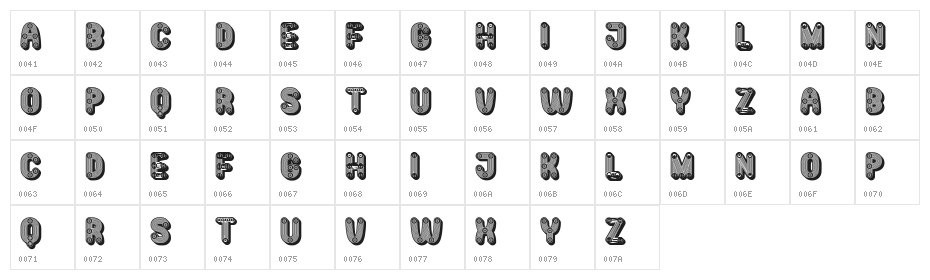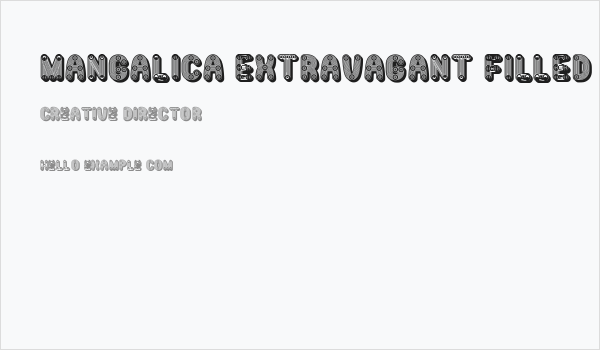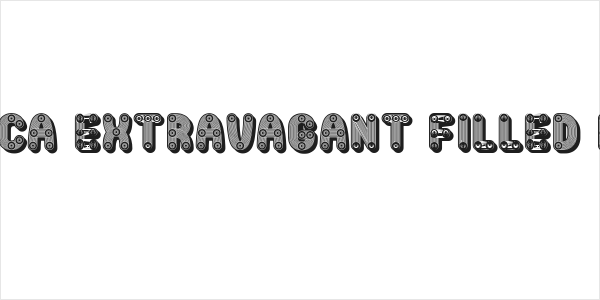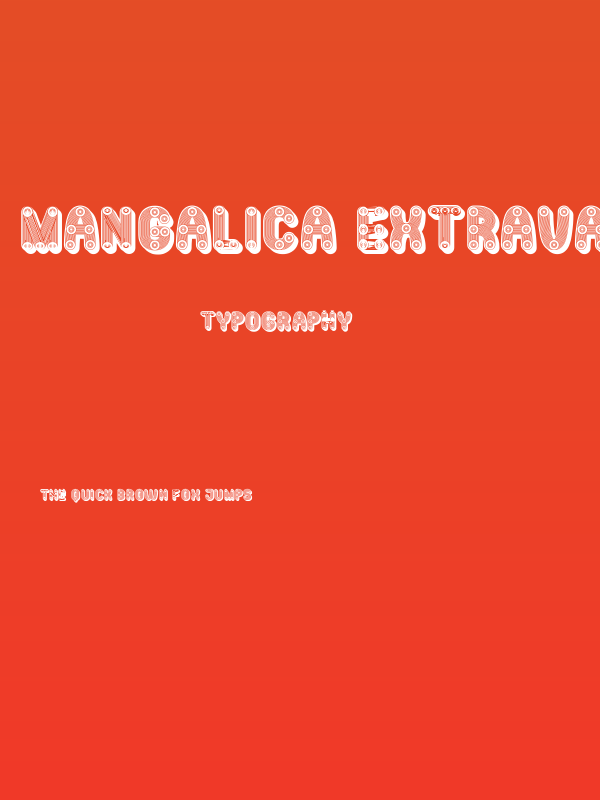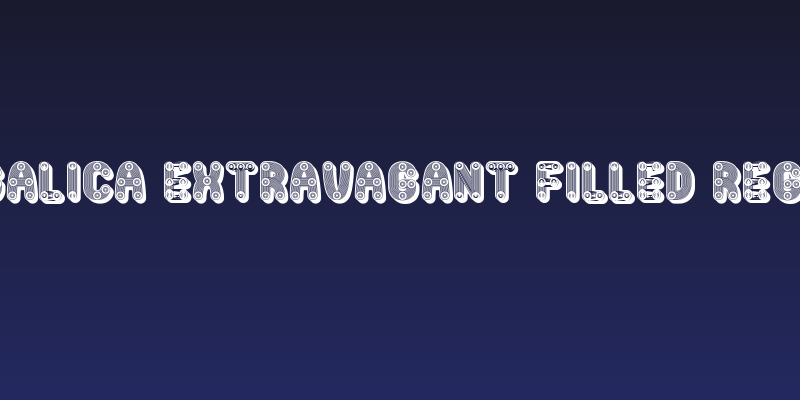
Mangalica Extravagant Filled Regular Font
Mangalica Extravagant Filled Regular Description
This font features an extravagant and bold design with filled, decorative elements that create a sense of depth and texture. Each character is adorned with intricate patterns and shapes, giving it a unique and eye-catching appearance. The letters are robust and have a playful yet sophisticated style, making them stand out in any design. The font's filled nature adds a sense of weight and presence, making it ideal for projects that require a strong visual impact. The overall design is both modern and whimsical, with a touch of artistic flair that makes it suitable for creative and innovative applications.
| Proposed Projects | Ideal for posters, branding, packaging, and any project needing a bold, artistic touch. |